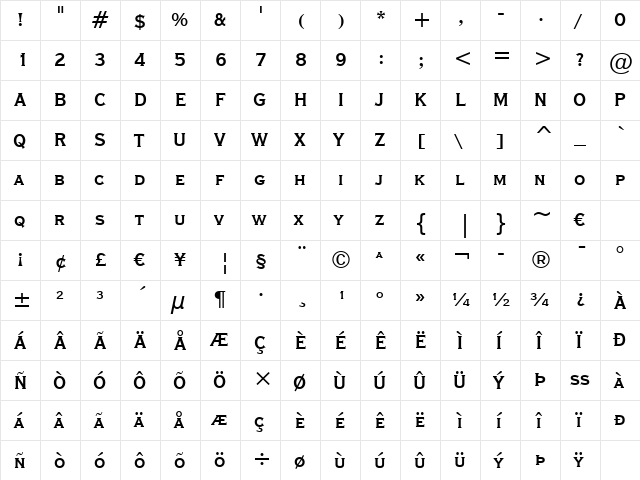
CopprplGoth BdCn BT Bold
Design Context for CopprplGoth BdCn BT Typeface
CopprplGoth BdCn BT is a composed and adaptable typeface that performs quietly and consistently across a wide range of design contexts. The heavy weight commands attention and anchors typographic hierarchies.